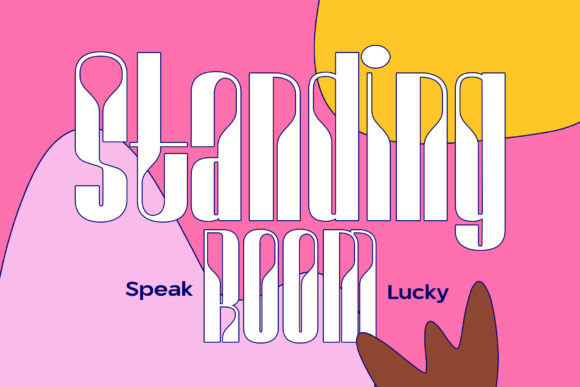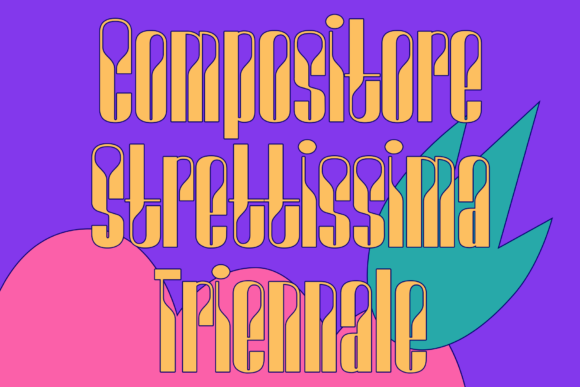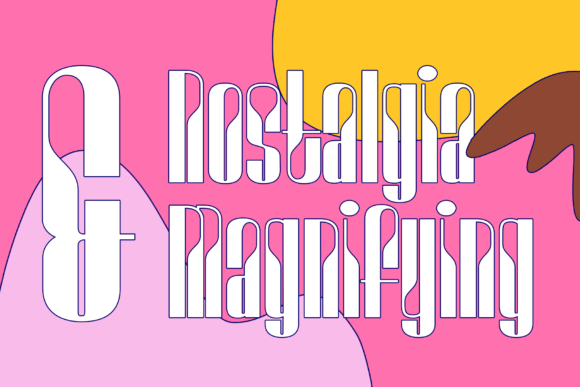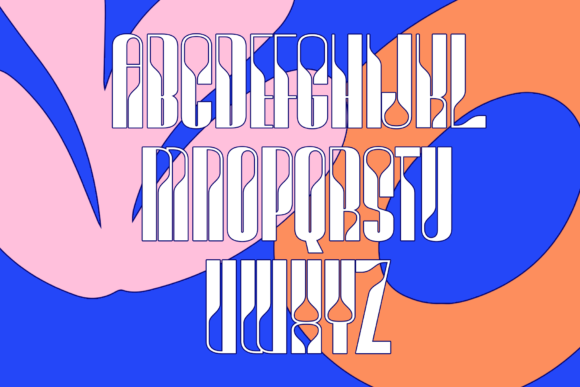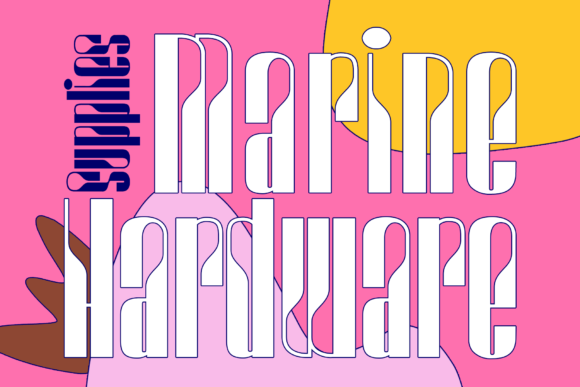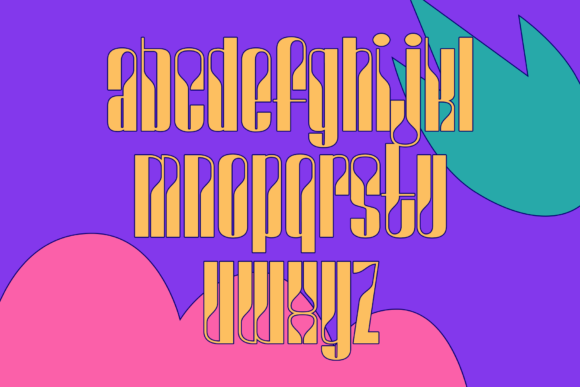
Introducing Blishead Font: A Modern Display Font with a Creative Twist
In the world of typography, fonts play a crucial role in conveying messages, expressing emotions, and creating visual identities. For designers and crafters, finding the perfect font can be a daunting task, especially when it comes to creating bold and eye-catching headlines or graphics. This is where Blishead Font comes in – a brand new display font that is sure to revolutionize your design projects with its strong decorative elements and rounded shapes.
The Unique Features of Blishead Font
Blishead Font is a peculiar font that takes a creative approach to letter design. Its condensed style and rounded letterforms give it an urban, modern feel that is perfect for big headlines or as a stand-alone graphic element. The font’s design is characterized by its:
- Condensed style: Blishead Font is designed to be compact and space-efficient, making it ideal for use in headlines, titles, and short paragraphs of text.
- Rounded letterforms: The font’s rounded shapes give it a friendly and approachable feel, making it perfect for designs that require a touch of warmth and personality.
- Strong decorative elements: Blishead Font features decorative elements that add a touch of sophistication and elegance to your designs.
Blishead Font is a versatile font that can be used in a variety of design projects, including:
- Headlines and titles: The font’s bold and condensed style makes it perfect for creating eye-catching headlines and titles.
- Graphic design: Blishead Font can be used as a stand-alone graphic element to add visual interest to your designs.
- Branding and identity: The font’s unique style and personality make it an excellent choice for creating brand identities and logos.
- Digital and print media: Blishead Font can be used in both digital and print media, including websites, social media, brochures, and posters.
Why Choose Blishead Font?
With so many fonts available, why choose Blishead Font? Here are just a few reasons:
- Unique style: Blishead Font has a unique and distinctive style that sets it apart from other fonts.
- High-quality design: The font is designed with high-quality and precision, ensuring that it looks great in any design project.
- Versatile: The font can be used in a variety of design projects, making it a great addition to any design library.
In conclusion, Blishead Font is a modern display font that is sure to revolutionize your design projects. Its unique style, high-quality design, and versatility make it an excellent choice for designers and crafters. Whether you’re looking to create bold headlines, eye-catching graphics, or brand identities, Blishead Font is the perfect choice. So why wait? Download Blishead Font today and take your designs to the next level!